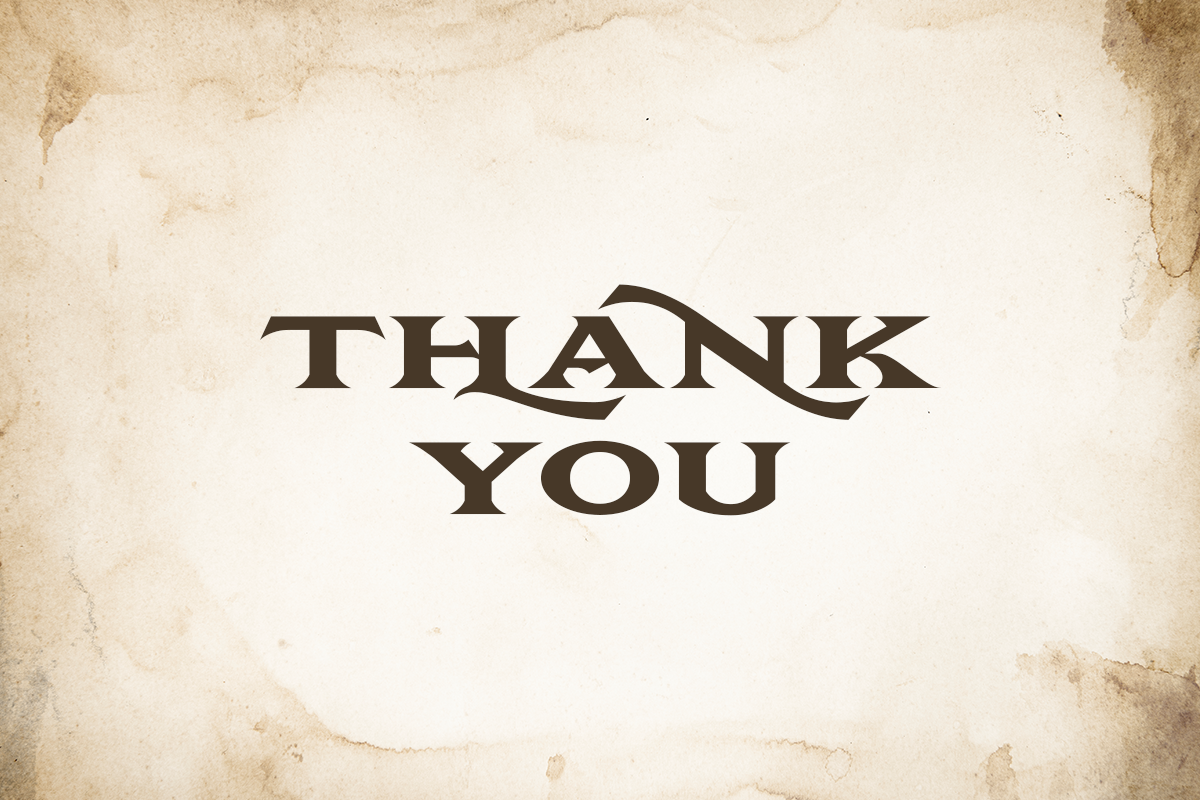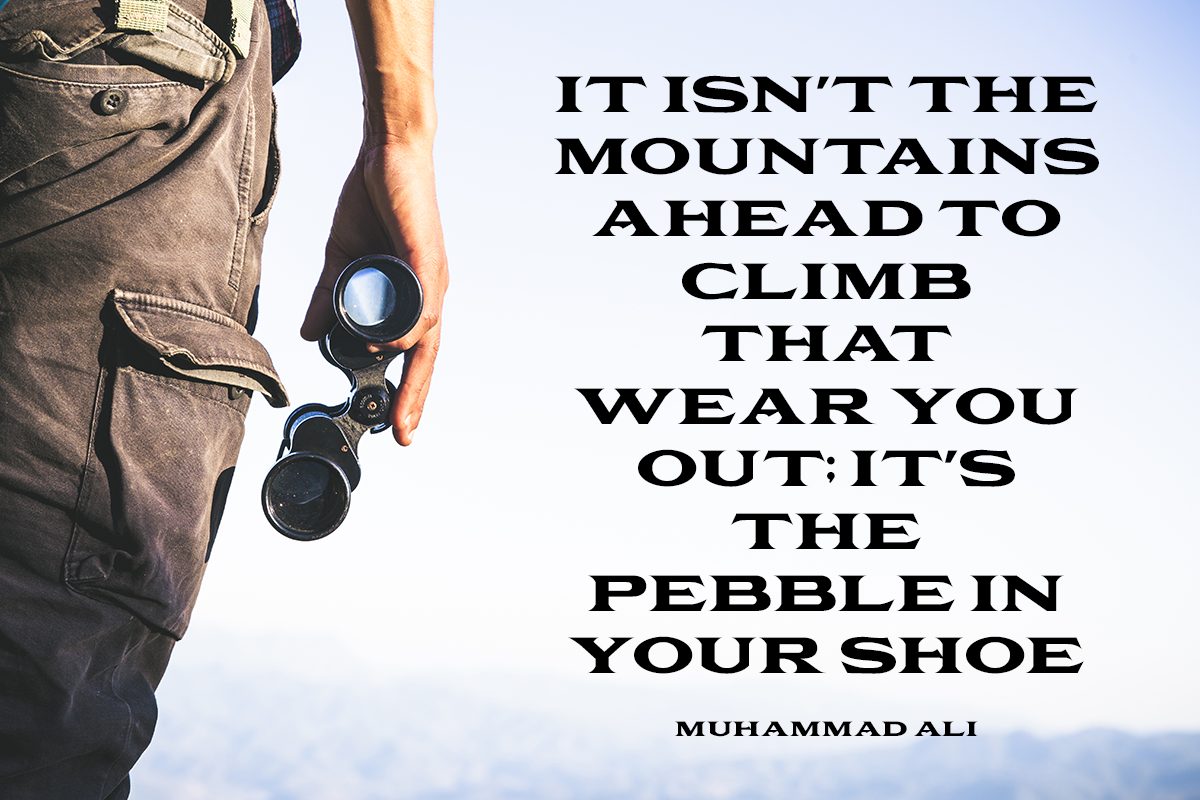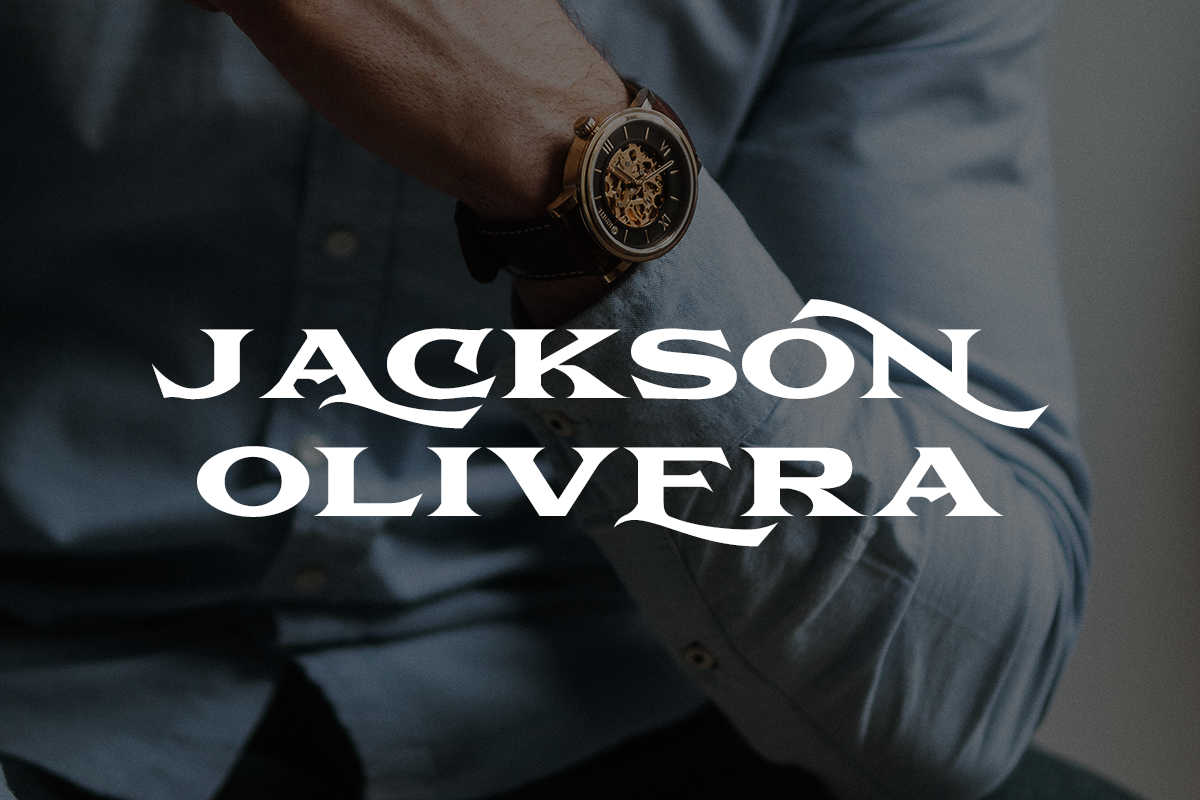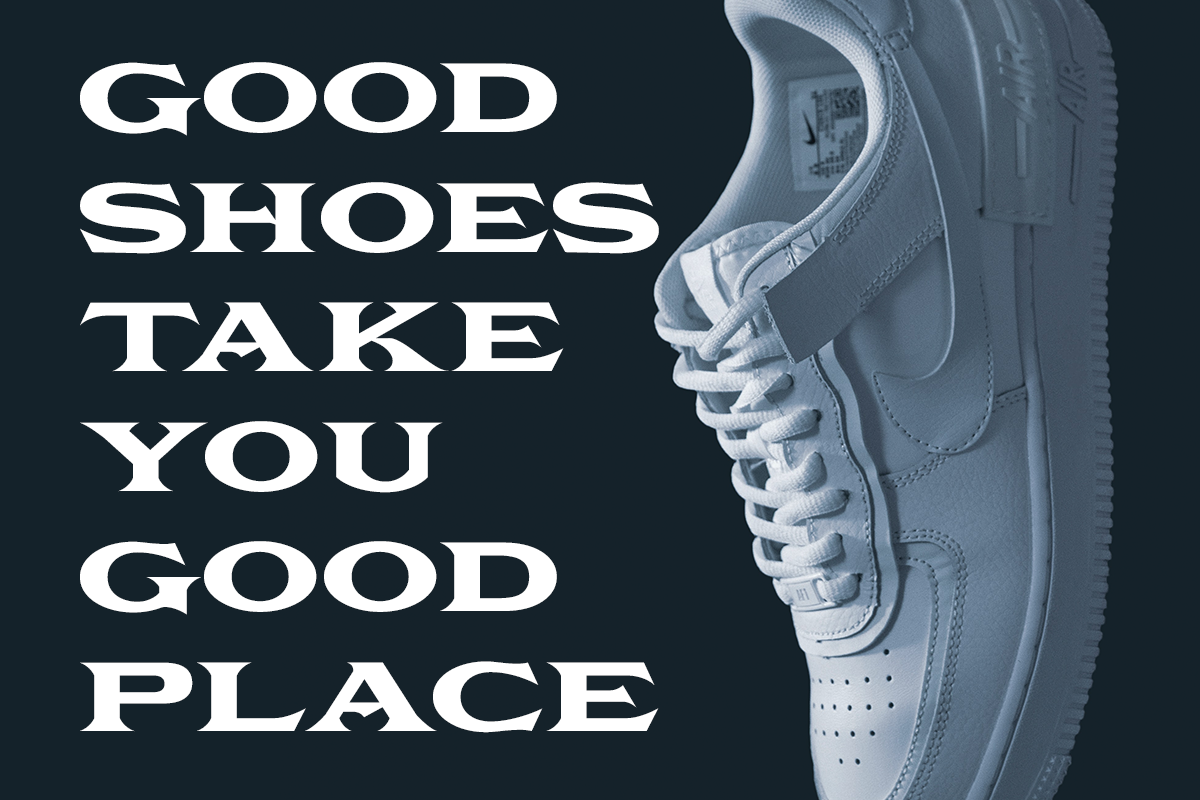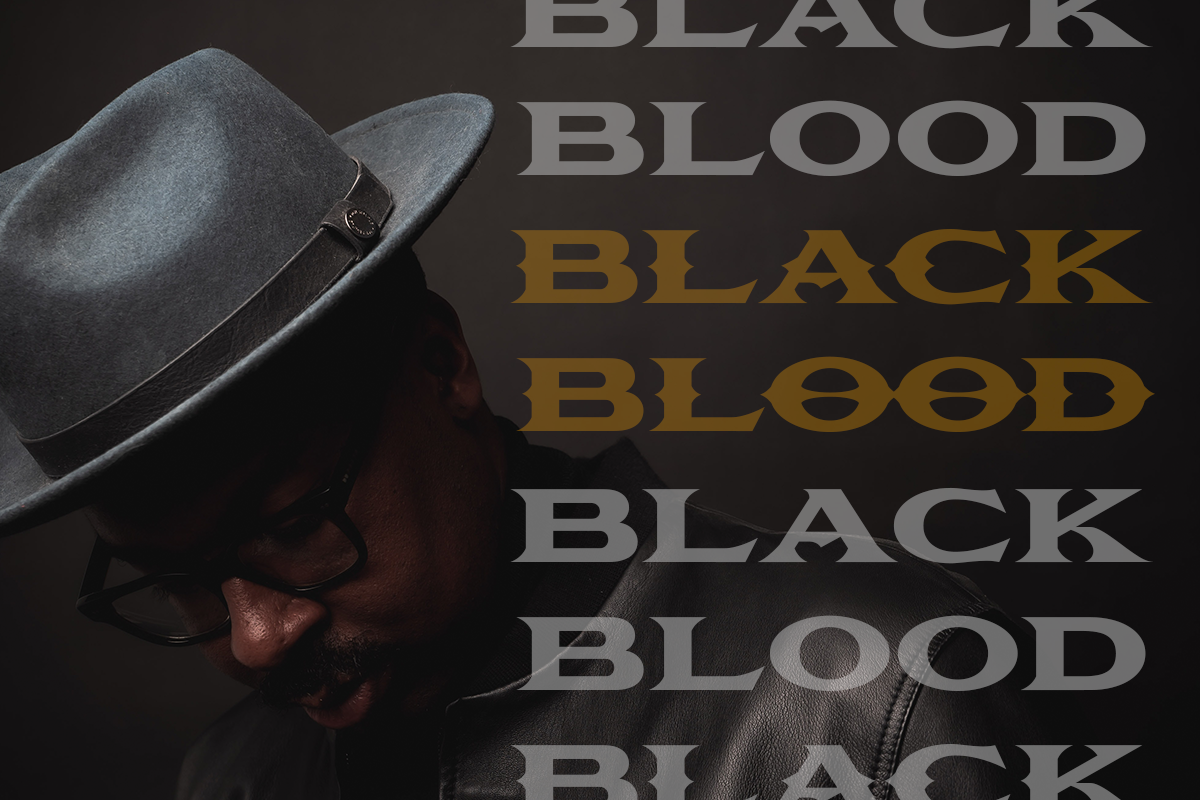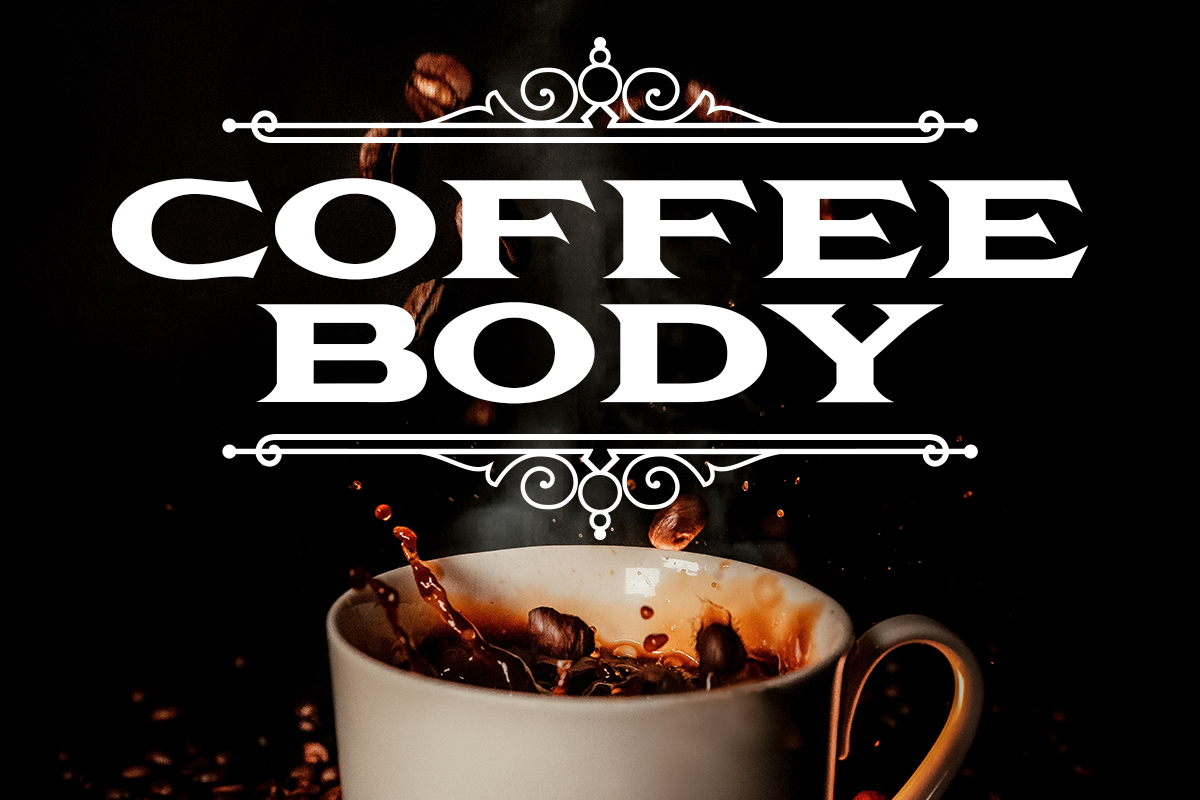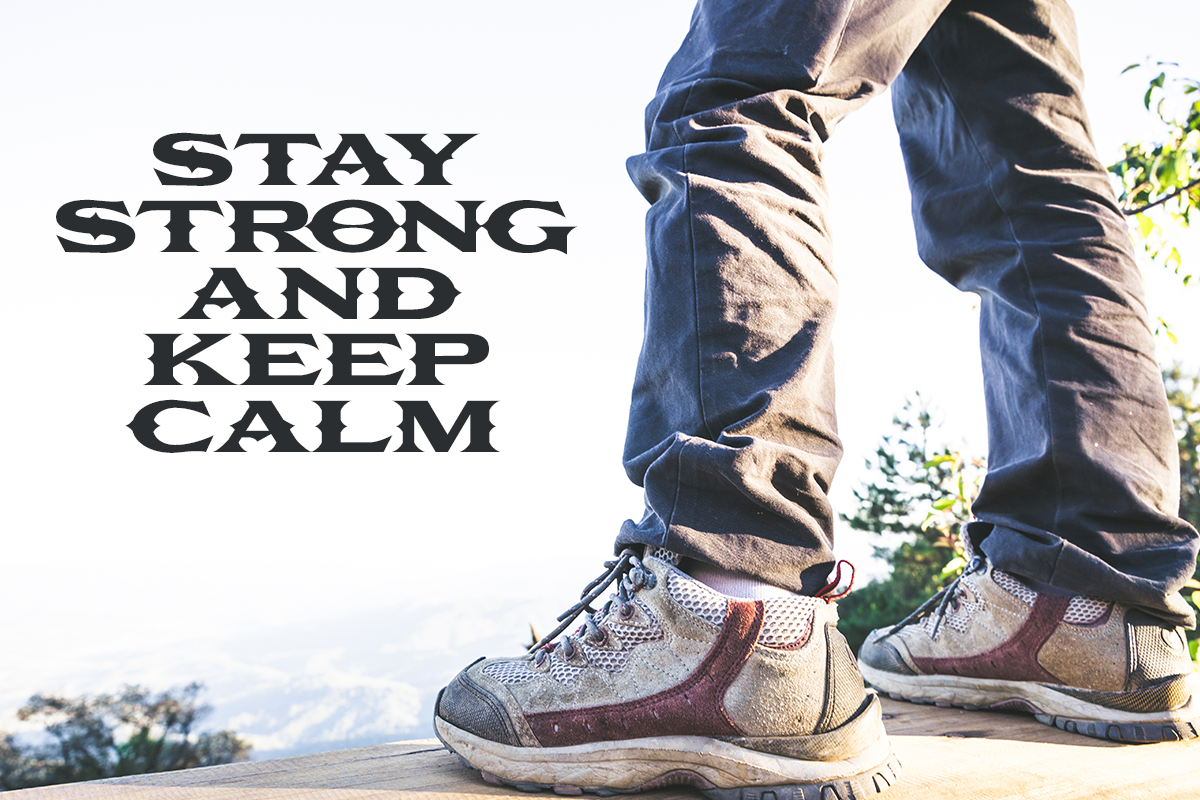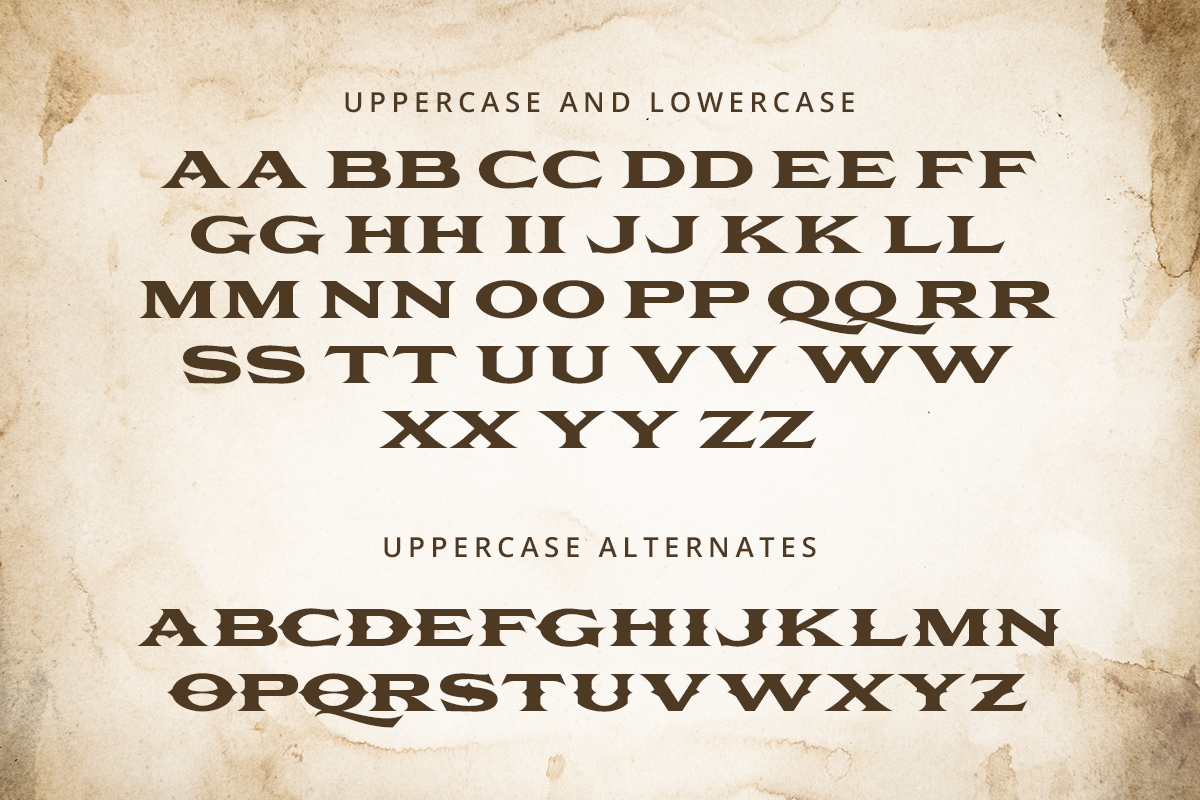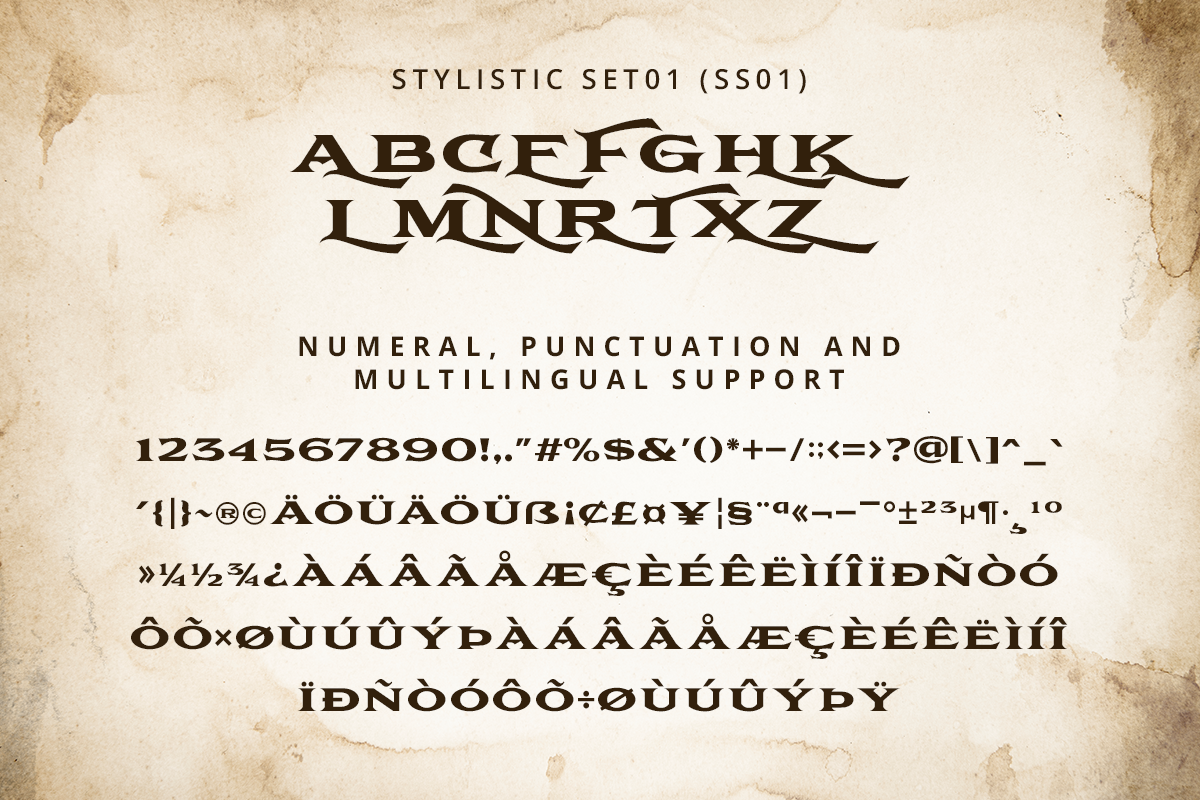
Oultra Vintage Serif Font Many different types of serif fonts are available for all of us. Oultra Vintage Serif Font is one of the fonts with a cool, unique, and vintage look. This impression is what makes this font different from other serif fonts. Oultra Vintage Serif Font has letter forms like another font. This font is firm but has long curved serifs. Oultra Vintage Serif Font can be distinguished between letters easily. It can read clearly from a distance or near. The font is legible. Oultra Vintage Serif Font can use as digital and print fonts. The character of this font makes it one of the best fonts that have high compatibility when used for wedding invitations, branding, fashion, book titles, business cards, posters, and many others. The function must pay attention to the font size and theme. The vintage impression of the Oultra Vintage Serif Font will make the product completed with this font have a high aesthetic value. It will look vintage and attractive. With the presence of this font, it can increase your choices for serif font lovers in choosing the appropriate font for your object. Our collection of serif fonts is compatible for use as; Figma fonts, Canva fonts, Freepik Fonts, and Adobe Fonts. They also work as Windows Fonts and Apple Fonts. For your social media needs, you can use and install fonts in our collection of serif fonts to use as Instagram Fonts, Facebook Fonts, and Twitter Fonts.